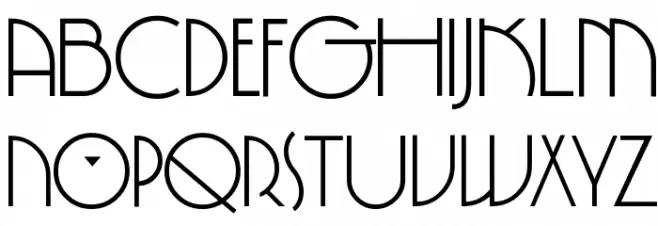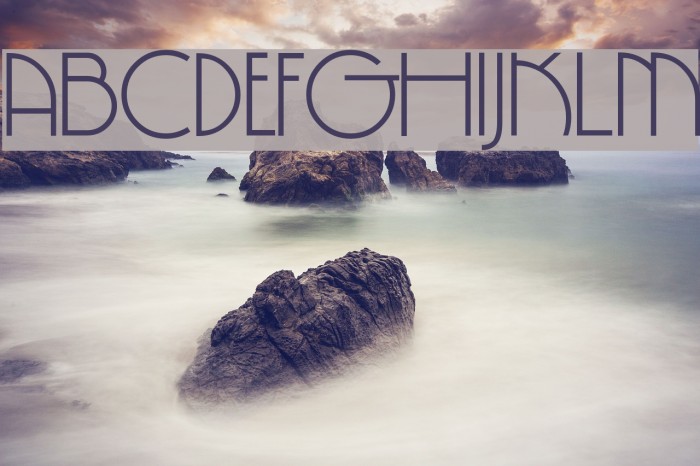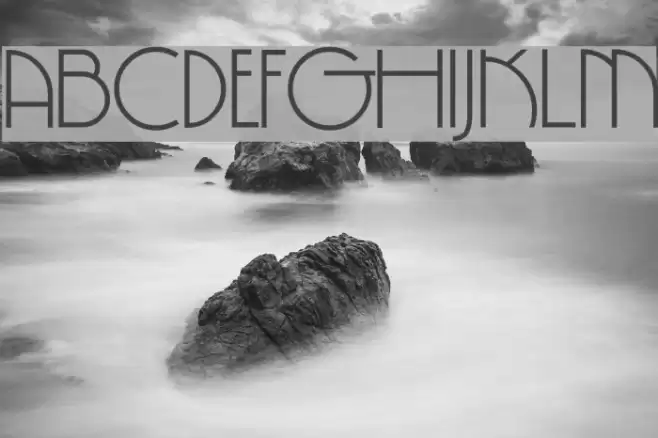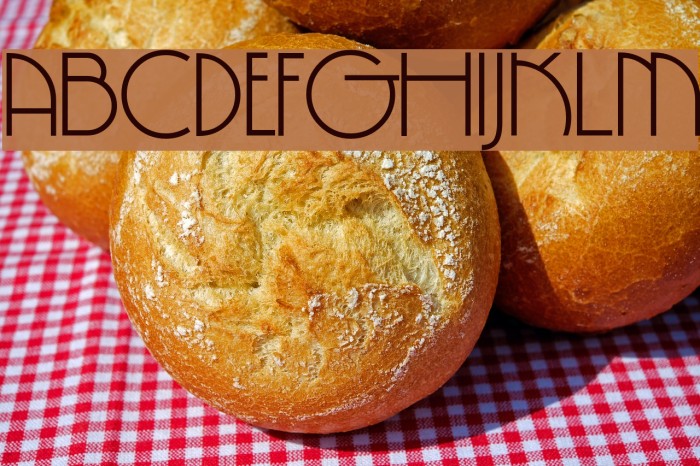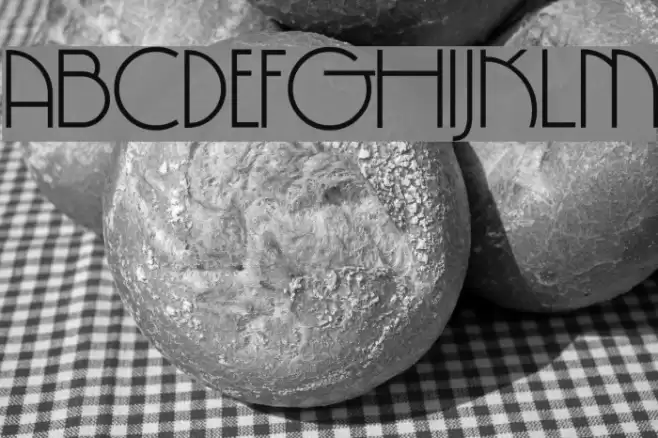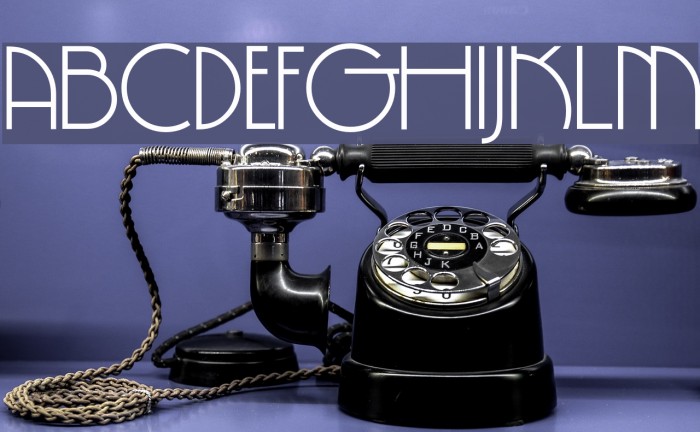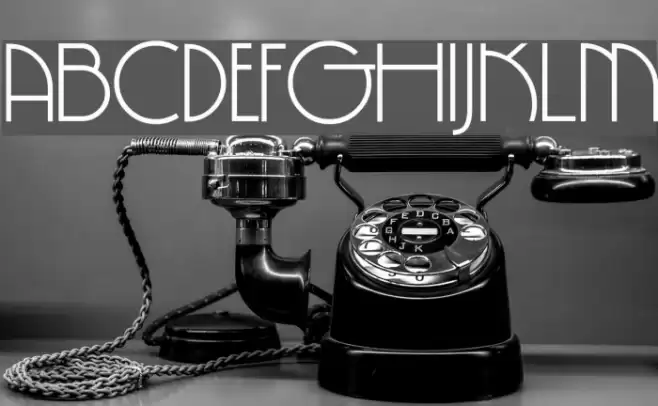
SpringGarden Regular Font
SpringGarden Regular Description
This font features a sleek and modern design with a geometric flair. The uppercase letters are characterized by clean lines and rounded edges, giving it a futuristic and elegant appearance. The absence of lowercase letters and numerals suggests a focus on decorative or headline use. The unique design of certain characters, such as the 'Q' with its distinctive tail and the 'R' with its sharp leg, adds a creative touch. The overall style is minimalistic yet sophisticated, making it suitable for contemporary design projects.